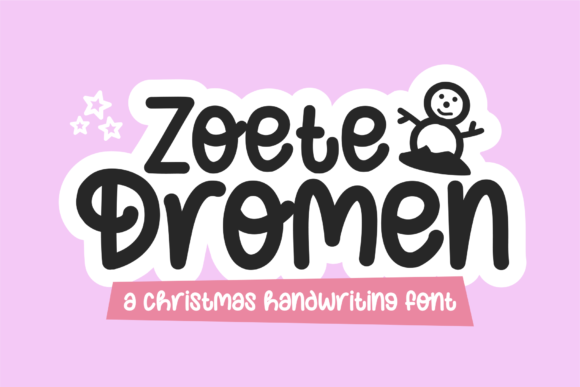
In a world of digital expressions, let your words dance with a touch of whimsical charm and festive allure. Introducing Zoete Dromen, the font that captures the magic of Christmas and transforms your designs into enchanting masterpieces. This captivating display font exudes a warm and inviting personality, making it the perfect choice for spreading holiday cheer.
Zoete Dromen, meaning "sweet dreams" in Dutch, is a font crafted with meticulous attention to detail, each letter a work of art in itself. Its playful and casual style adds a touch of lightheartedness to your creations, while its incredibly friendly feel evokes a sense of warmth and togetherness.
Picture this: a Christmas card adorned with Zoete Dromen's graceful characters, carrying heartfelt messages of love and joy. Or, envision winter crafts adorned with its charming letters, adding a touch of magic to your festive décor. The possibilities are endless, as Zoete Dromen lends its versatility to a myriad of creative endeavors.
But what sets Zoete Dromen apart is its ease of use. Encoded with PUA, this font allows you to access all of its glyphs and swashes with effortless ease. Unleash your creativity and let your imagination soar, knowing that Zoete Dromen is your trusted companion, ready to transform your visions into reality.
So, embrace the magic of Christmas with Zoete Dromen, the font that brings dreams to life. Let your designs radiate with festive cheer, spread joy through your words, and create memories that will last a lifetime.